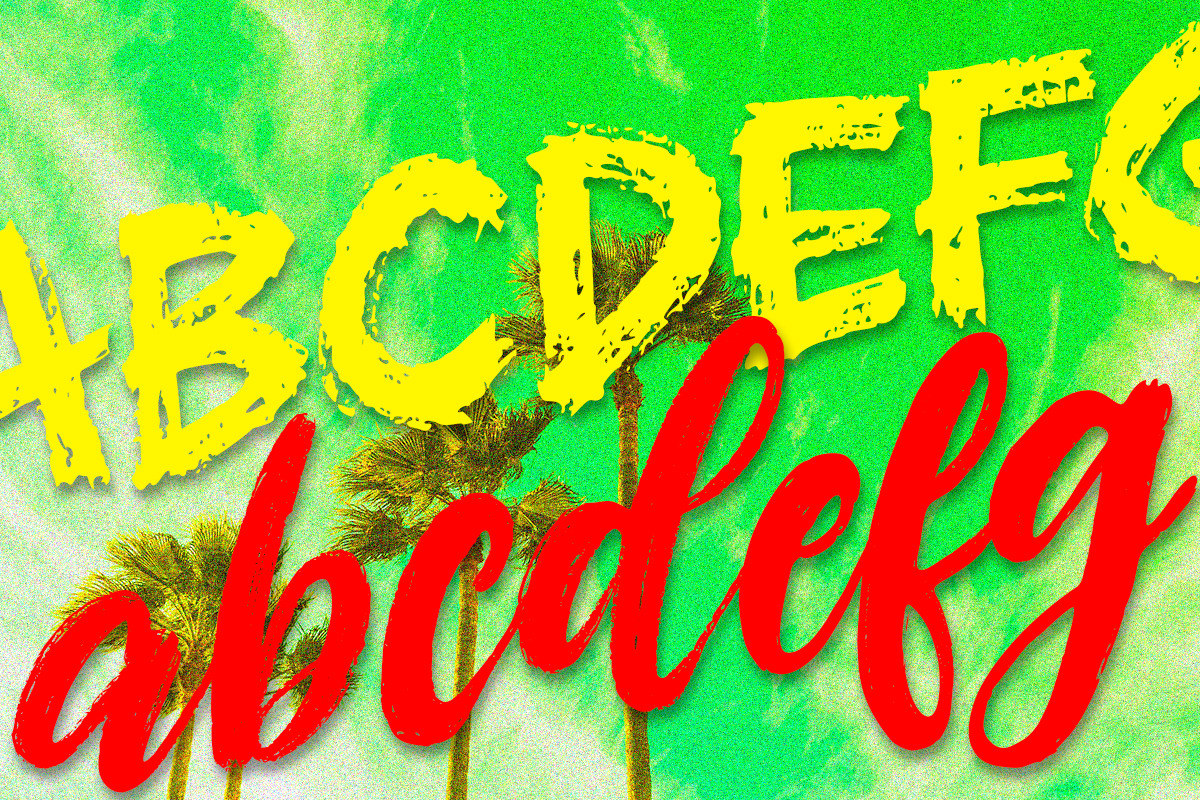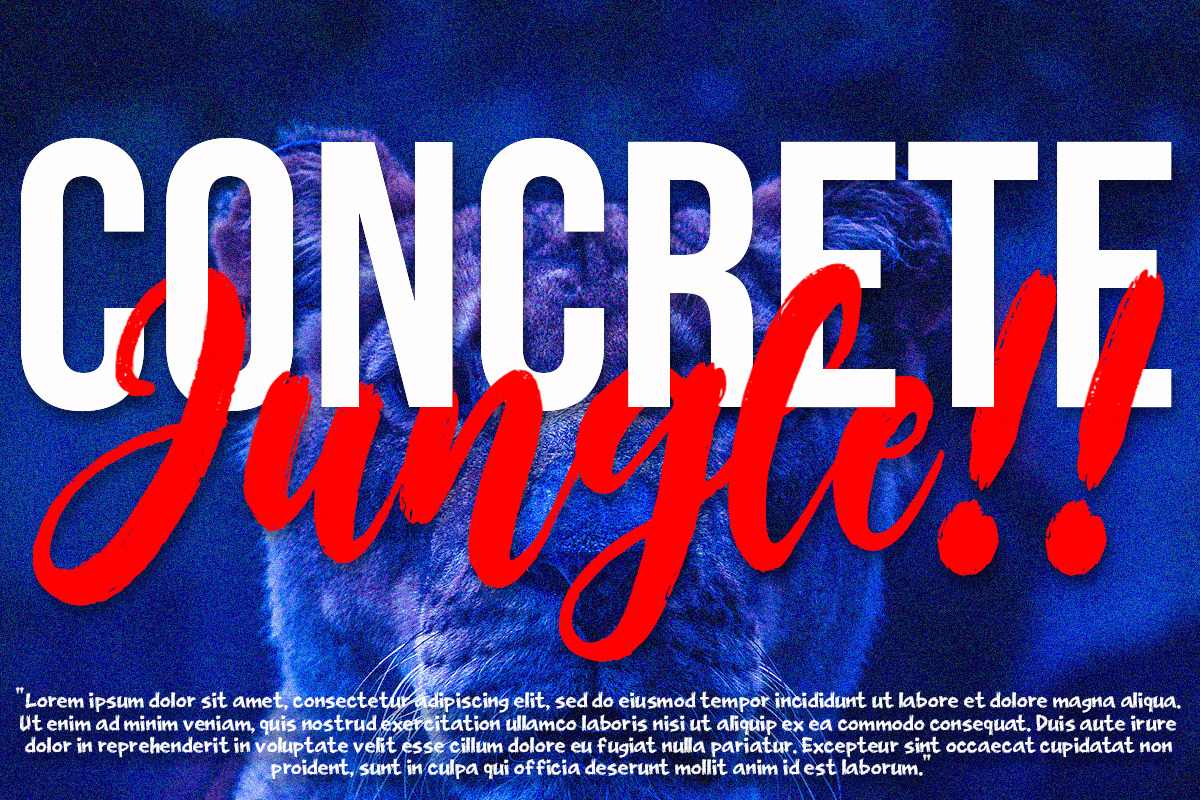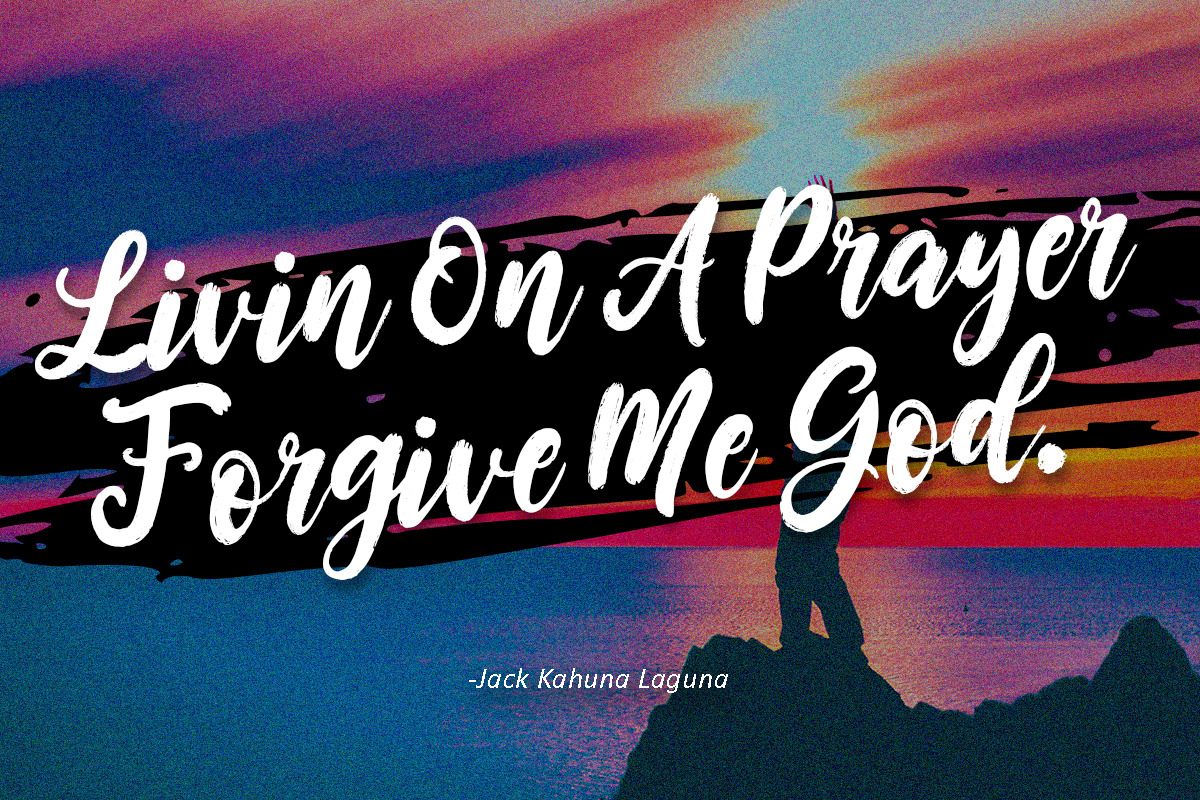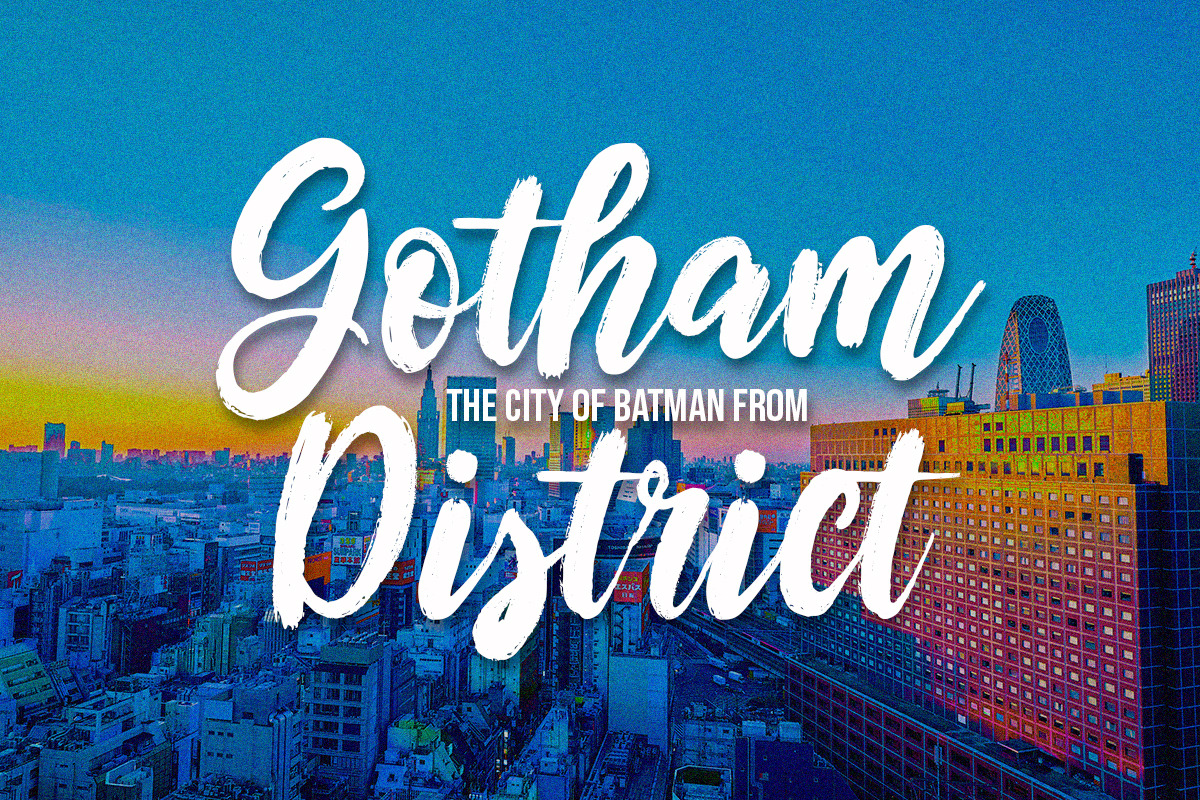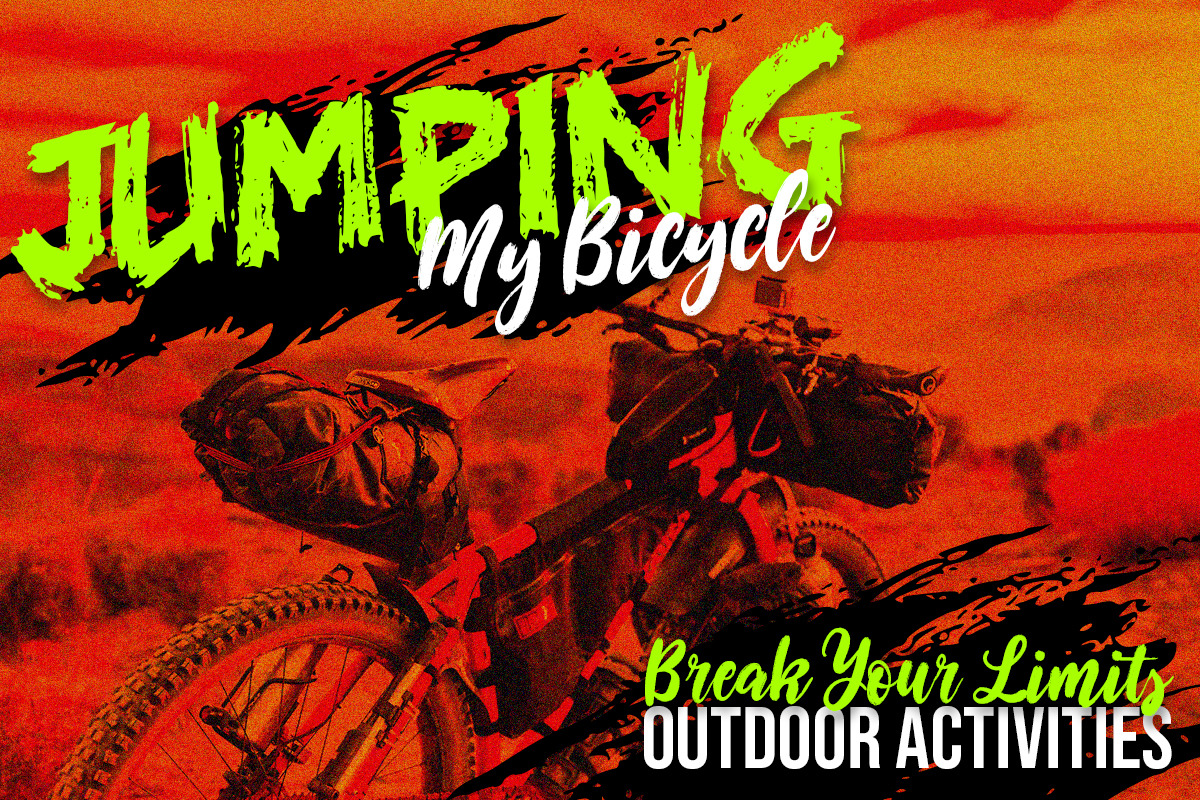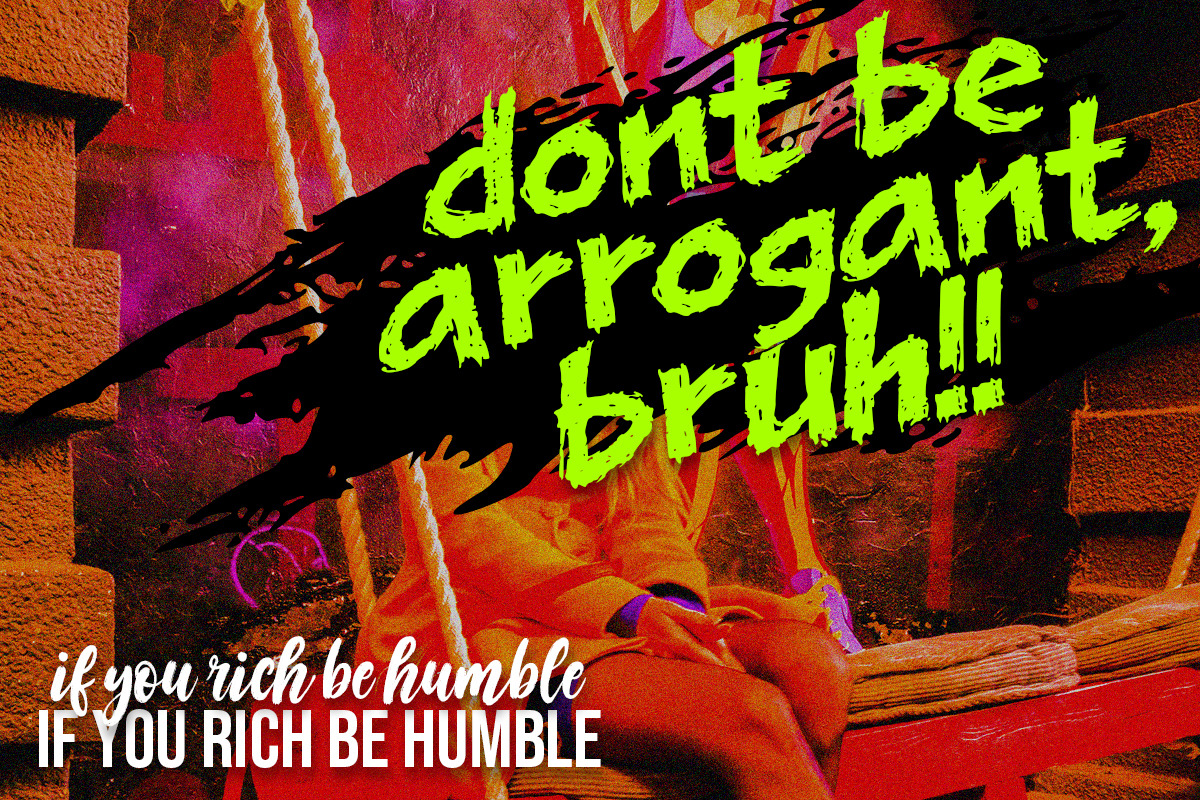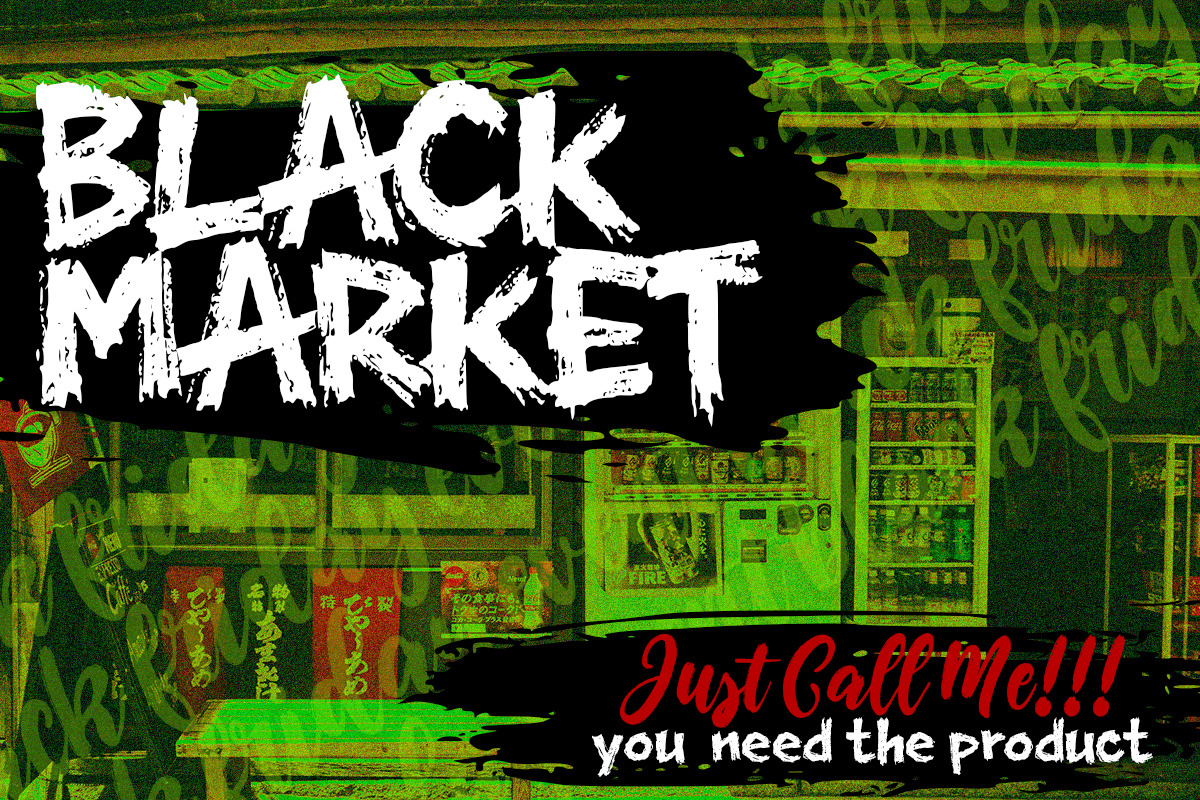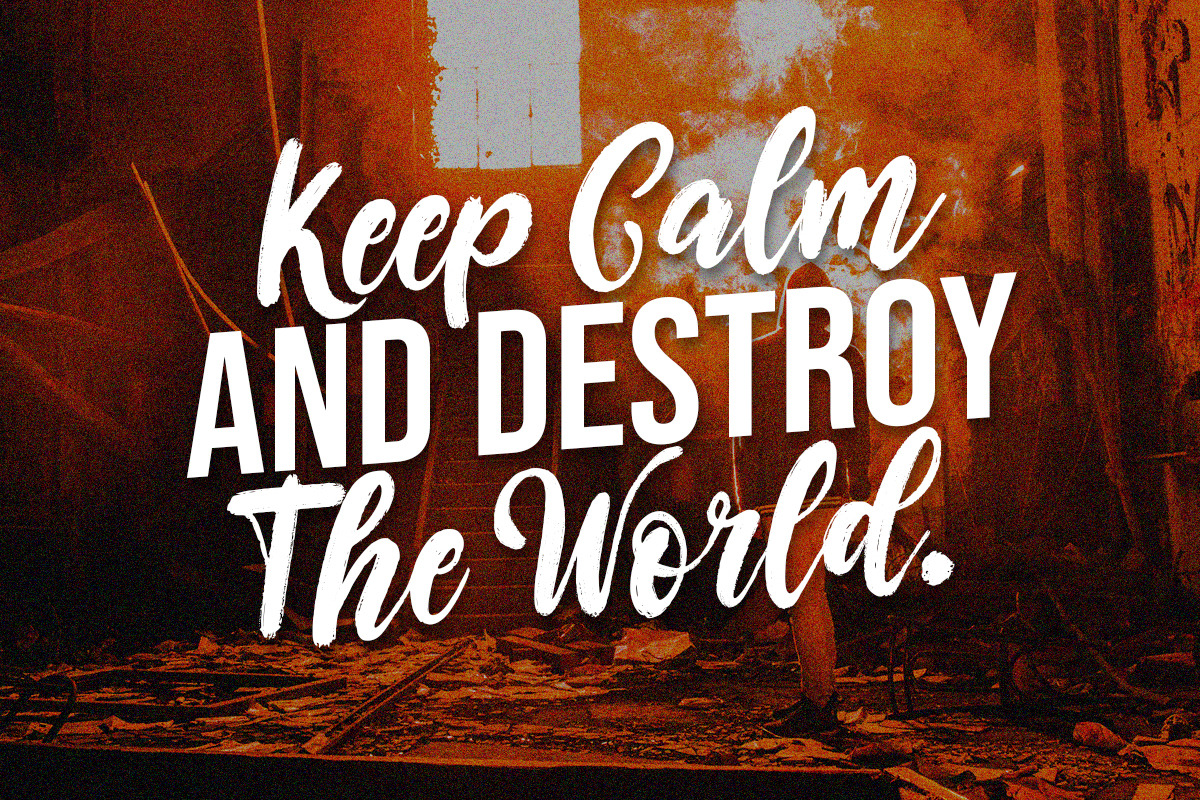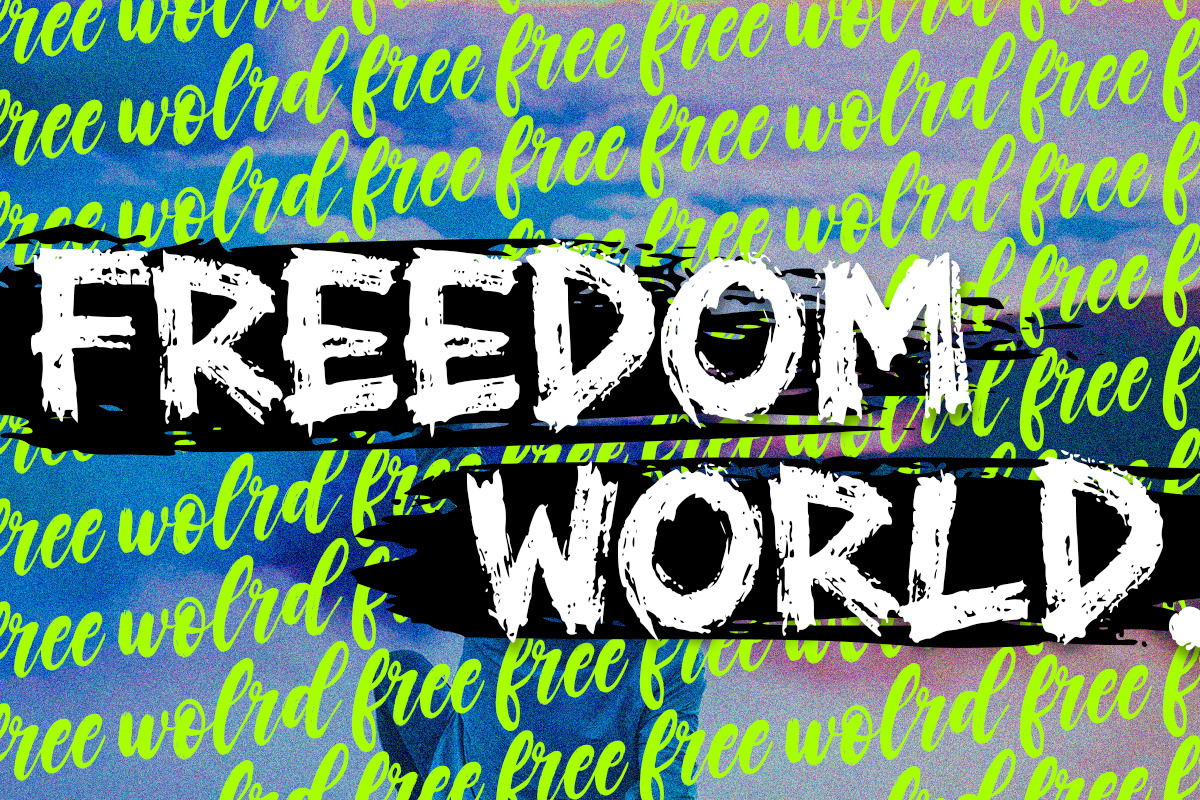
Badger Criminal
Gemini berkata Unleash your creative edge with Badger Criminal, a raw and gritty font duo from Struggle Studio designed to bring an authentic urban street vibe to your projects. This versatile pack features three essential files: a bold Regular brush font for high-impact headlines, a rebel-style Script for a natural handwritten flow, and a dedicated Swash brush set filled with custom strokes and splatters to give your artwork that final hand-painted touch. Perfectly textured and dripping with attitude, it is the ultimate choice for streetwear branding, edgy posters, and masculine apparel designs that refuse to blend in.